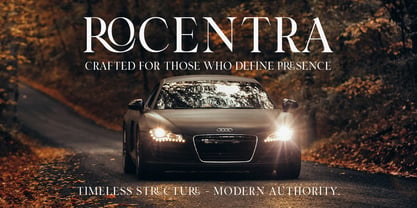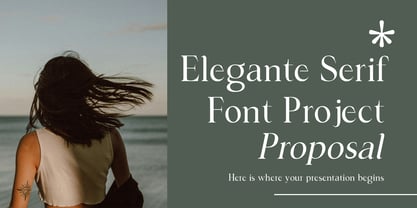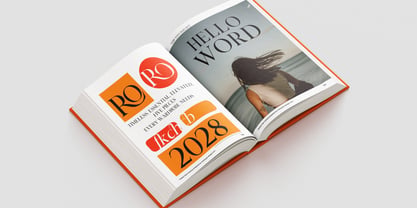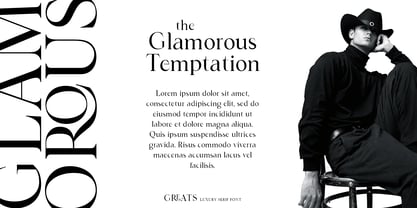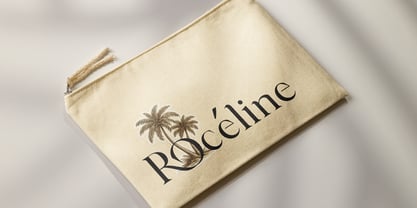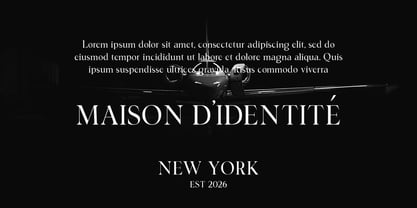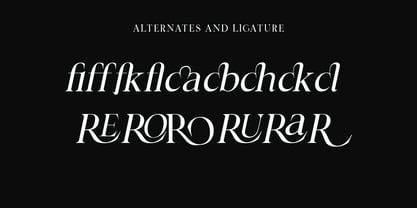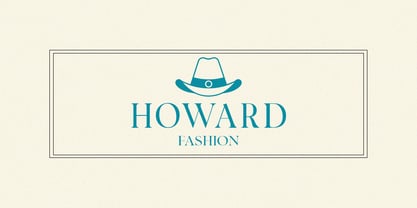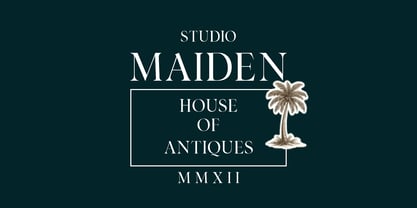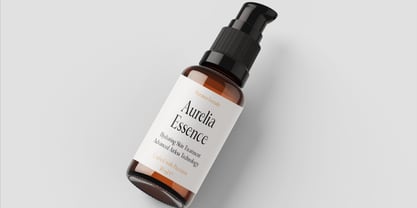
Rochello
by Luhop Creative
The Rochello Font Family was designed by Arif Fadilah and published by Luhop Creative. Rochello contains 3 styles and family package options. More about this family
Rochello – Luxury Modern Serif Font for Elegant Branding & Editorial Design Rochello is a luxury modern serif font crafted for high-end branding, fashion typography, editorial headlines, and elegant logo design. This high-contrast serif typeface blends timeless classic proportions with a contemporary fashion aesthetic. Sharp serifs, refined curves, and dramatic thick-to-thin contrast create a sophisticated and confident look that instantly elevates any design. Designed for professionals working in luxury branding, beauty packaging, magazine layouts, jewelry brands, cosmetic labels, boutique identities, and premium logo projects, Rochello delivers versatility with a strong editorial presence. Its balanced structure makes it perfect for: • Luxury logo design • Fashion branding • Editorial magazine headlines • Beauty & cosmetic packaging • Jewelry and boutique branding • Wedding typography • High-end social media campaigns • Premium product packaging Rochello is a display serif with elegant proportions and high contrast details that create a refined, upscale impression while maintaining readability. Font Styles Included: Regular – Classic, bold, and authoritative Italic – Expressive, stylish, and fashion-forward Outline – Modern, editorial, and eye-catching If you're searching for a luxury serif font, modern serif typeface, fashion font, elegant branding font, editorial serif, or high-end logo font, Rochello is designed to deliver sophistication, exclusivity, and timeless beauty. Rochello is not just a font — it’s a statement of elegance.
Designers: Arif Fadilah
Foundry: Luhop Creative